1. Wathelmina Font
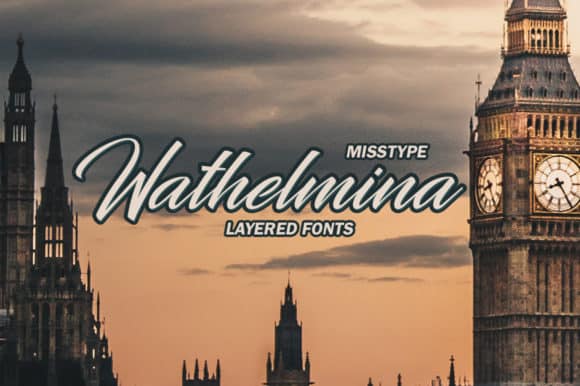
Wathelmina is a beautiful, modern calligraphy font. It comes with several alternatives that make the font look sweet and elegant.
Author : IRF Lab Studio
2. Inspiration Font
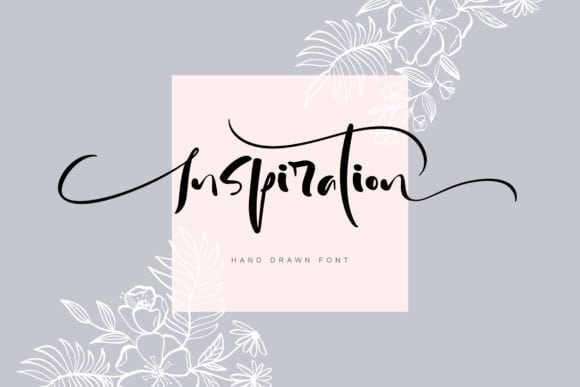
As its name suggests, Inspiration is an inspirational and cool script with a unique style. Use it to turn any design project into a beautiful standout!
Author : Happy Letters
3. Queen Font
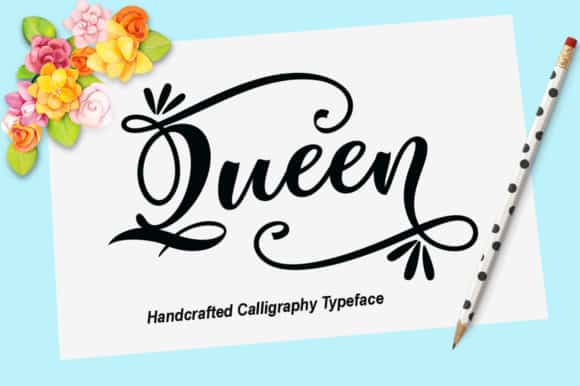
Queen features beautiful lettering and original swashes, making it an incredibly stunning crafting font!
Author : YanIndesign
4. Bouquet Font
Yollina feels charming and vibrant and will turn any design project into a true standout. Get inspired by its unique charm!
Author : inumocca_type
5. My Last Breath Font
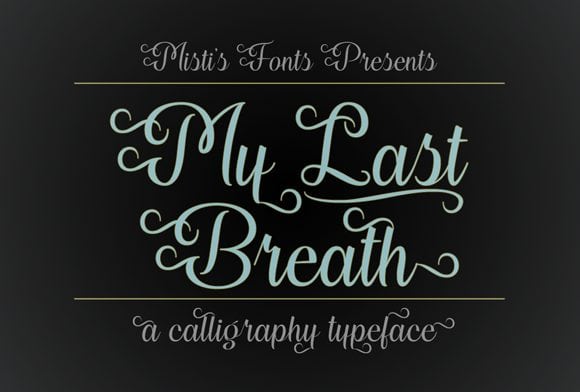
My Last Breath is an elegant scripted typeface that will add charm and class to your projects! Perfect for wedding invitations, logos, product labels and so much more! Includes swashes and alternates to add more character to your designs!
Author : Misti
6. Channelley Font
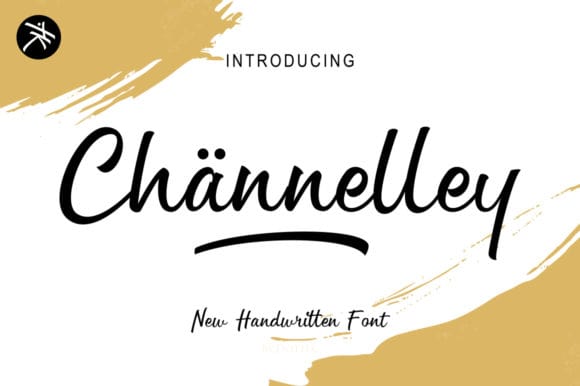
Channelley is a sweet and elegant handwritten font with an undeniable charm. Get inspired by its effortless coolness.
Author : Arief.hk
7. Lambresia Font
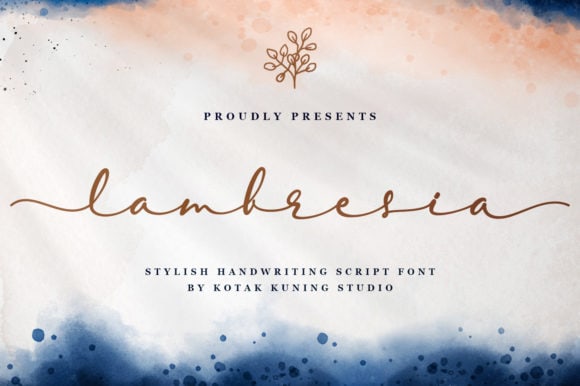
Lambresia is a cool and charming script with a unique feel. Fall in love with its authentic charm!
Author : Kotak Kuning Studio
8. Courtland Font
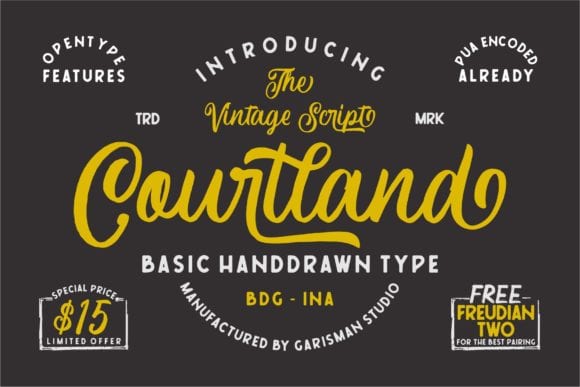
Inspired by Canada’s landscape, this beautiful and bold vintage font will inspire any design project that needs a retro touch. It also includes the amazing font Freudian, which perfectly adds to Courtland’s style.
Author : Garisman Studio
9. Mondena Font
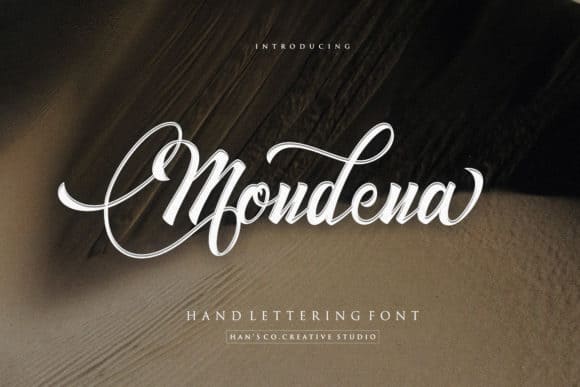
Mondena is a fun and sweet handwritten font with a cool twist. Use it to turn any design project into a true standout!
Author : HansCo
10. Summer Beach Font
Summer Beach is a handwritten display font with alternative flourishes included. It can add fun and excitement to your designs!
Author : Happy Letters